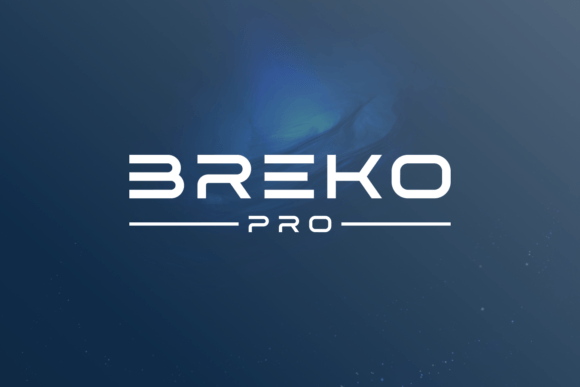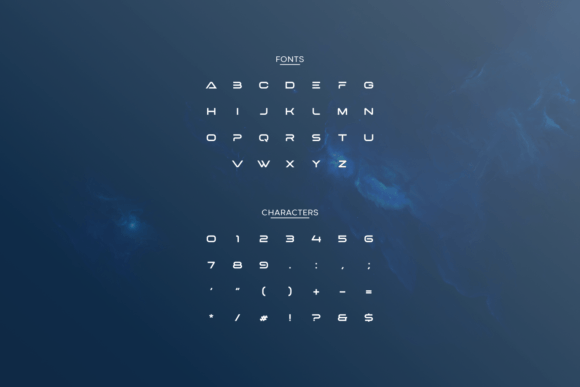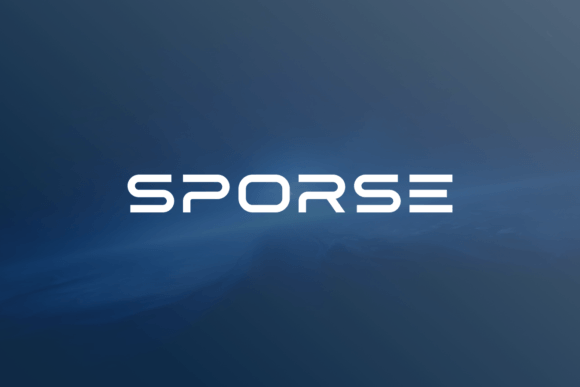
Unlocking the Future of Typography
Imagine yourself staring at a blank canvas, waiting for the perfect font to bring your creative vision to life. It’s that moment when inspiration strikes, and the world of typography opens up before you. You start to envision futuristic interfaces, sleek designs, and bold statements that leave a lasting impression.
| 👤 Author | Letterna |
That’s where the Arpubes Font comes in – a modern, elegant, and futuristic display font designed to elevate your designs to the next level. Whether you’re crafting web designs, creating business cards, or looking for a unique touch, the Arpubes Font is the perfect addition to your toolkit. Its sleek, futuristic feel makes it an ideal choice for electronic, robotic, and electrical products.
For designers, the Arpubes Font offers a valuable resource that can help you stand out from the crowd and make a lasting impression. Its versatility and unique style make it a must-have for any creative project, from concept art to finished products.
Arpubes Font Key Features
- Font Family: Arpubes Font is a sans-serif font family designed for digital use. It is available in various weights, from light to bold.
- Character Set: The font includes a comprehensive character set, covering Latin, Cyrillic, and Greek alphabets, as well as a range of punctuation and symbols.
- Resolution: Arpubes Font is optimized for high-resolution displays, making it suitable for use in digital media, including web, mobile, and desktop applications.
- Size: The font family includes a range of sizes, from 8-point to 72-point, allowing for flexibility in design and layout.
- Unique Characteristics: Arpubes Font features a clean, modern design with a subtle rounded edge, making it highly legible and visually appealing in a variety of contexts.
Designer Review: Arobues Font
Arpubes Font is a unique and intriguing typeface that caught my attention. While it’s not without its flaws, there are some aspects that shine ✨. Let’s dive into what works well and what doesn’t.
- Distinctive and bold letterforms make Arpubes Font a great choice for headlines and titles.
- Its quirky and eclectic feel adds a touch of personality to any design project.
- The font’s high x-height makes it readable even at small sizes, which is a plus for digital applications.
- Arpubes Font can be overwhelming if used extensively in body text, as it’s better suited for short passages or titles.
- The font’s irregularities can make it difficult to pair with other typefaces, which may limit its versatility.
- Lack of a comprehensive font family (e.g., regular, italic, bold) can be a hindrance in certain design scenarios.
Arpubes Font is a bold and attention-grabbing typeface that excels in specific contexts. While it may not be the most versatile font, its unique qualities make it an excellent choice for designers looking to add some personality to their projects. With a clear understanding of its limitations, Arpubes Font can be a valuable addition to any design arsenal.
Tips for Getting the Most Out of Arpubes Font
Use Arpubes Font for headings and titles to create a visually appealing design.
Pair Arpubes Font with other fonts to create a unique and stylish typography.
Experiment with different font sizes and colors to create a consistent visual brand.
Use Arpubes Font for:
Headings and titles
Logos and branding
Editorial and publishing content
Alternatives to Arpubes Font
Monserrat is a sans-serif font that was designed specifically for digital use. It is known for its clean and modern aesthetic, making it a great choice for modern designs. It is also highly legible, even at small font sizes. Montserrat is a great alternative to Arpubes Font for designers who want a clean and modern look.
Comparison: Montserrat has a more geometric shape compared to Arpubes Font, which is more rounded. Montserrat is also more versatile and can be used in a wider range of designs.